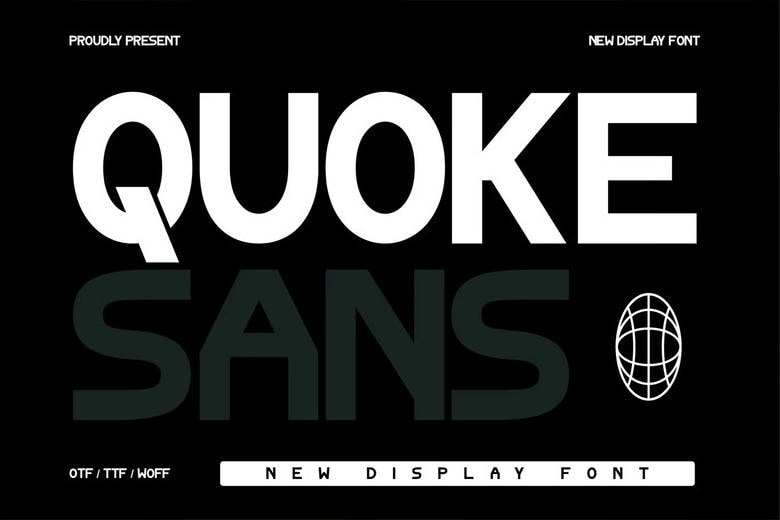
Quoke Font
Quoke is a smooth and contemporary sans-serif typeface, which is of a clean and minimalist nature. It is easy, but effective in design, suitable to the digital as well as print media. Quoke is perfect when there is the need to be clear and polished in the projects due to its geometric forms and proportionality.
This font is applicable in a variety of design settings due to its ability to give a modern touch regardless it is used in the headline, body, or branding.
Quoke Sans Serif Font